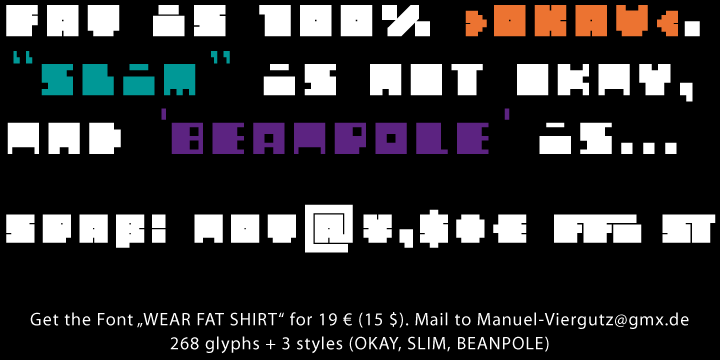
Preview and download Wear Fat Shirt Font. Created by Manuel Viergutz | Typo Graphic Design in Techno Square styles with Free for personal use license.
Headline Font / Display Font / Fat Techno Font "Wear Fat Shirt" with 3 stlyes (okay, fat, beanpole) & 268 glyphs inkl. accents & € INFO If you want to use this font for commercial projects, please contact me: manuel.viergutz[at]gmx.de or donate an amount greater-than-or-equal EUR 15 / $ 19 (for commercial licence). I also appreciate it if you send me links /images of your (non)-commercial work featuring this font. |